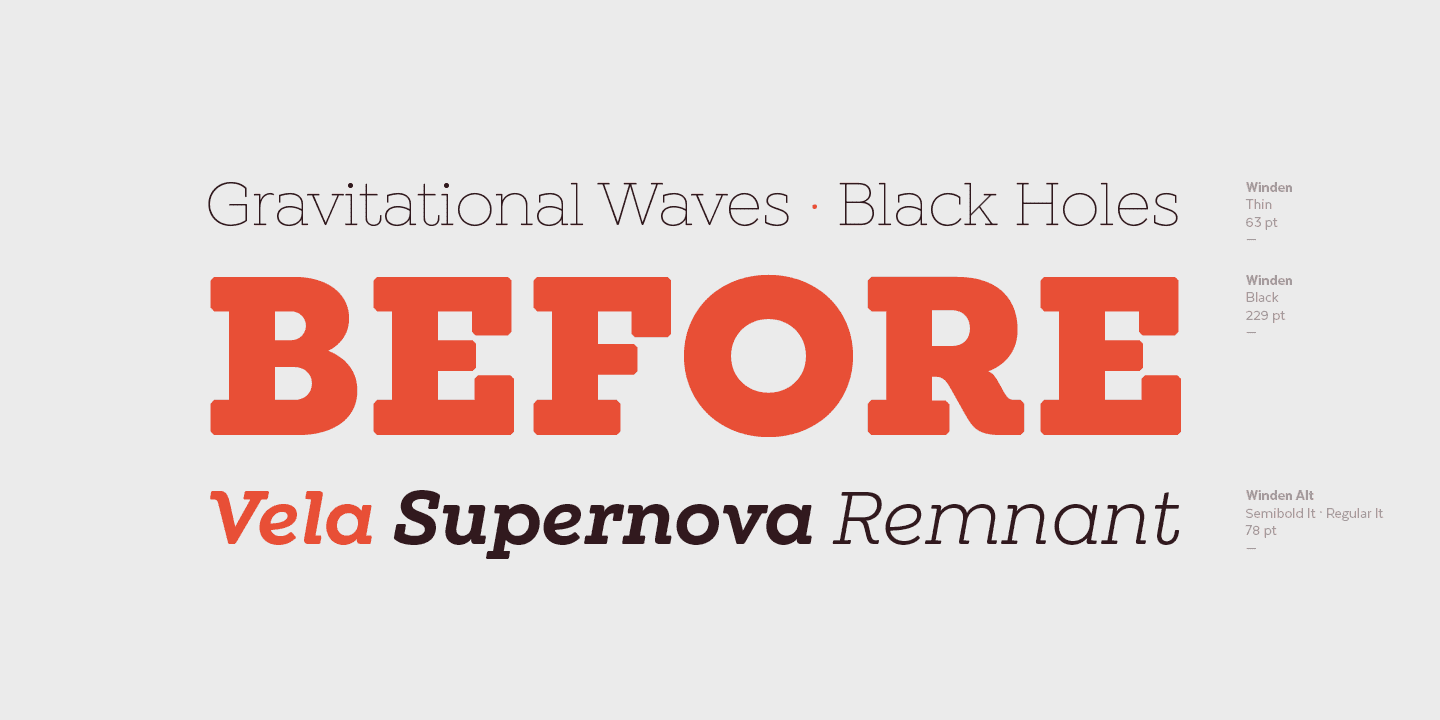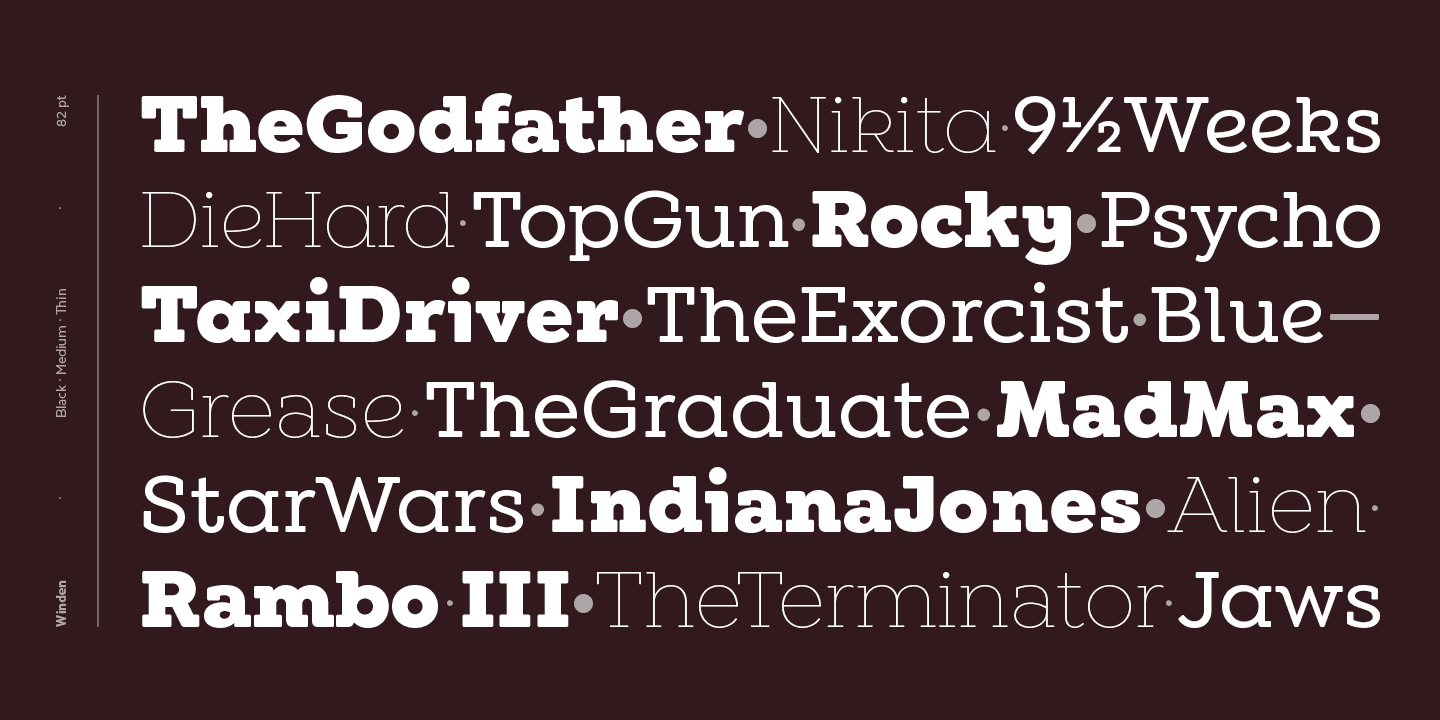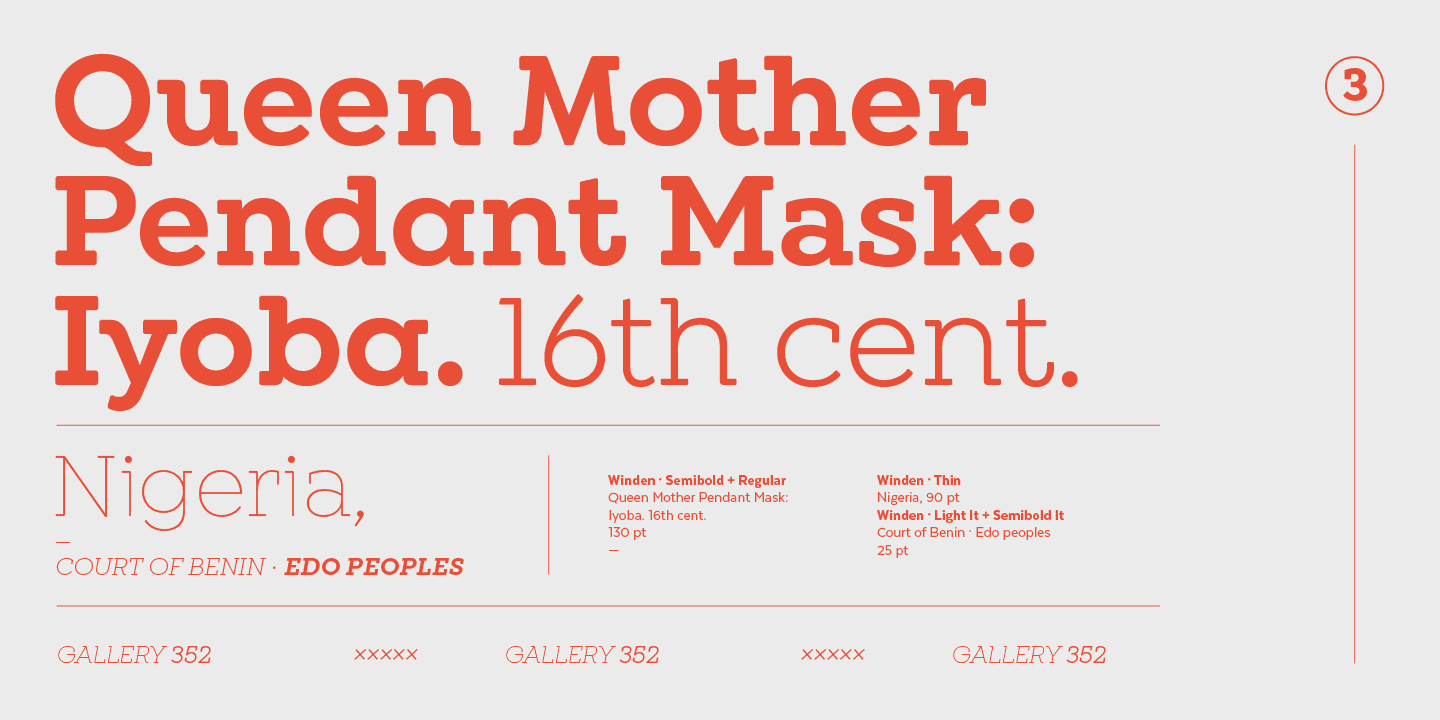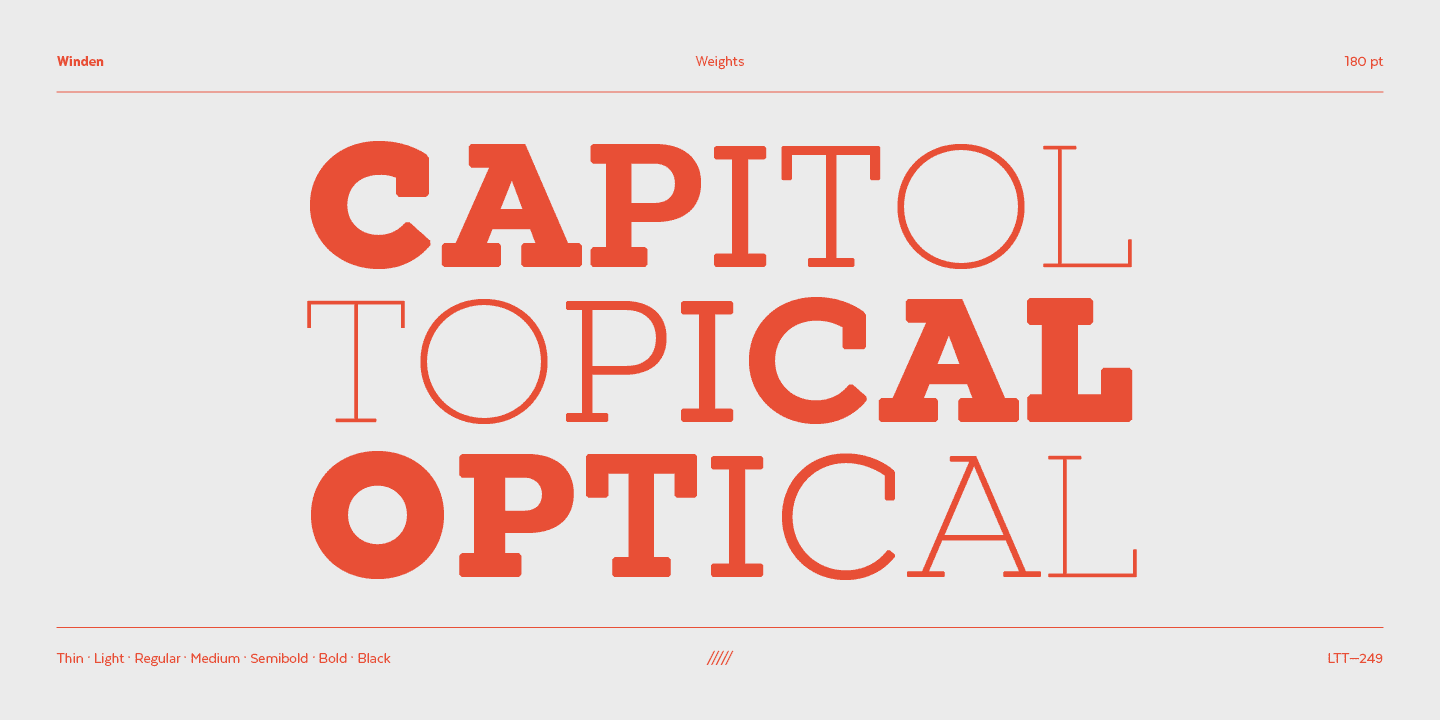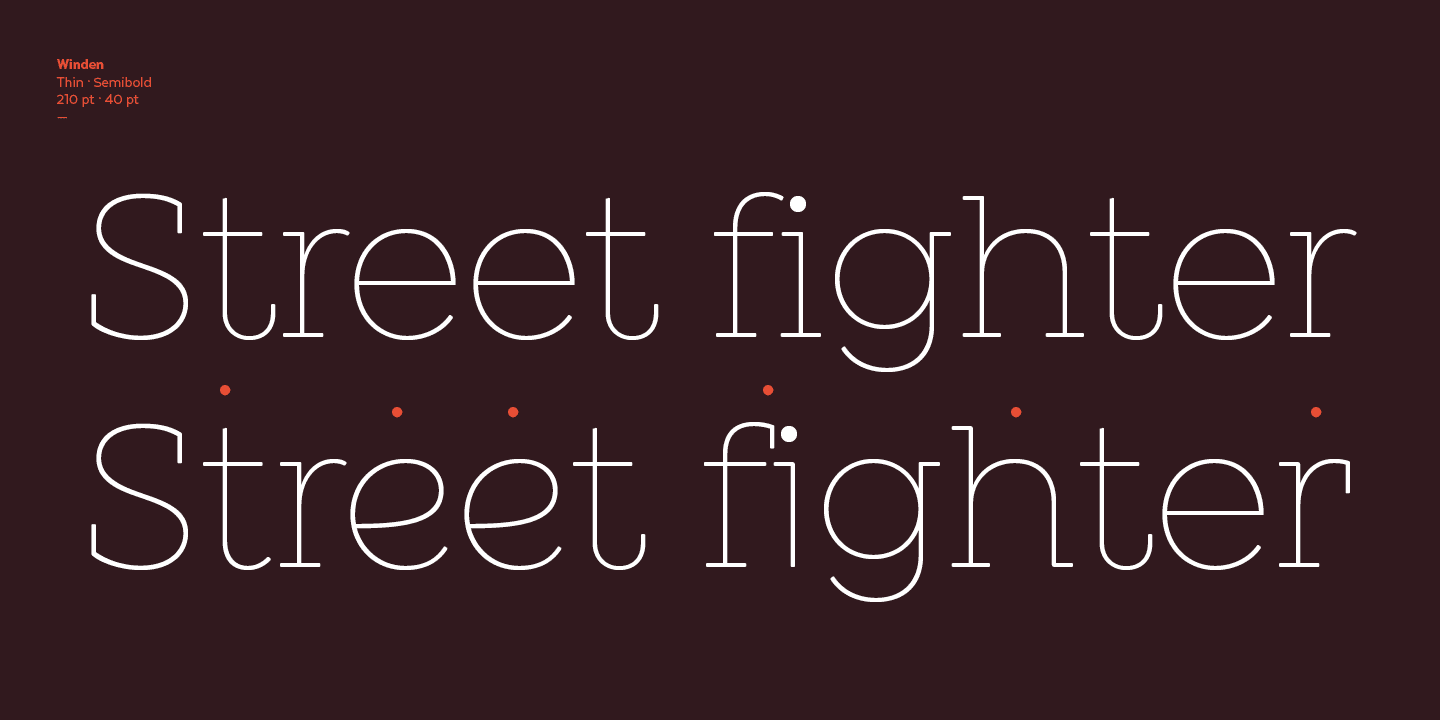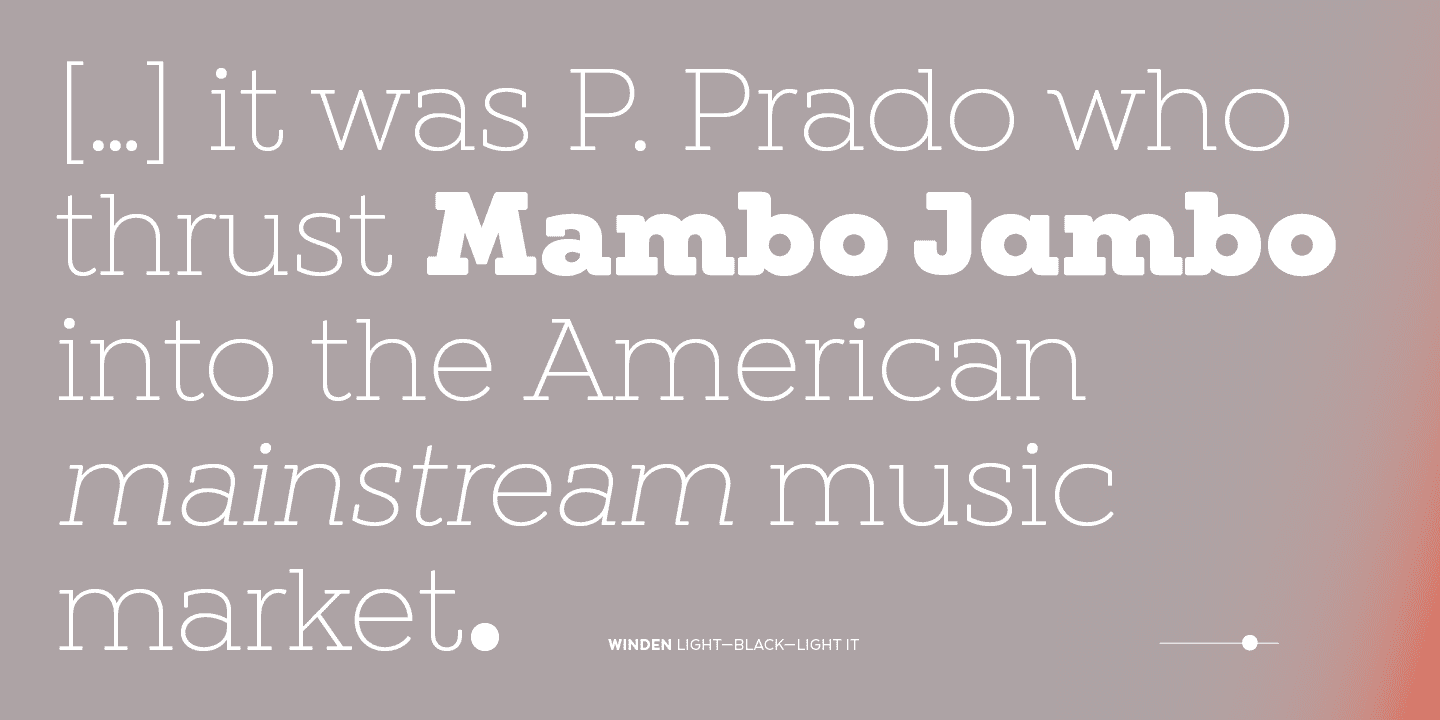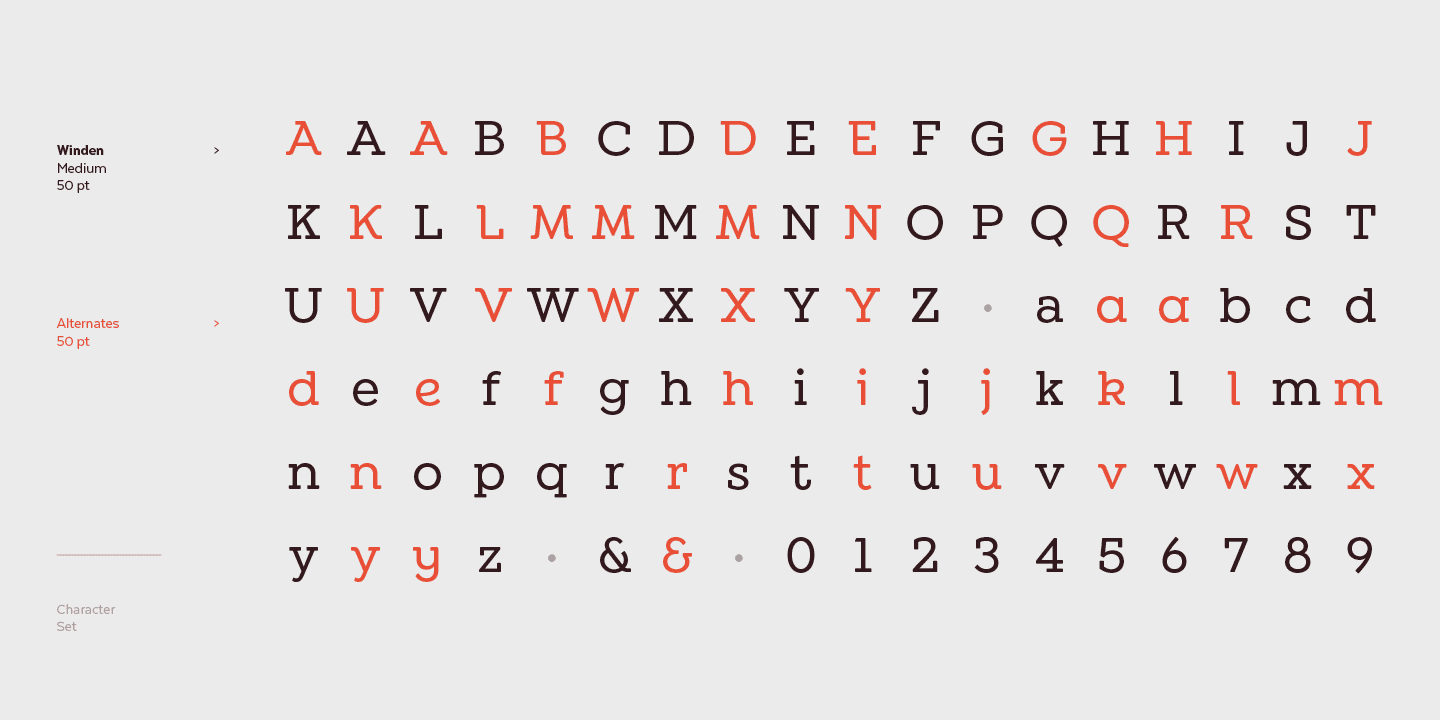
This font consists of two subfamilies: Winden —classic, simple and functional— and Winden Alt (playful and contemporary), ideal for display use. Each version comes in 7 weights, ranging from Thin to Black, and includes matching italics— 28 fonts in all.
Winden is the perfect choice for headlines, logos, branding, packaging, publications and websites. The full set contains 615 characters that support over 200 Latin-based languages.